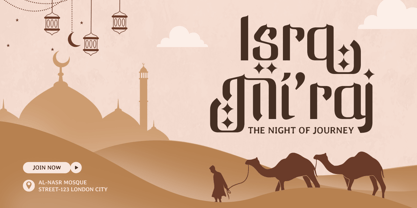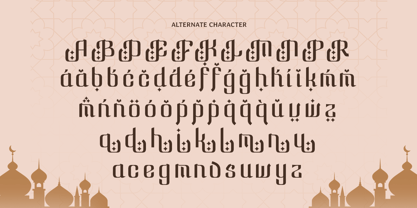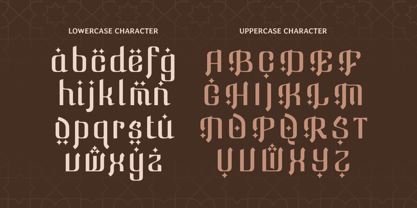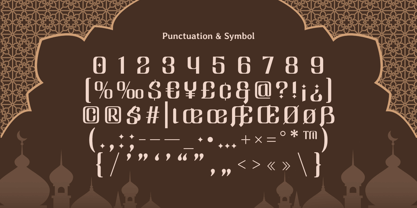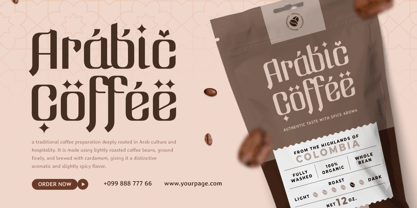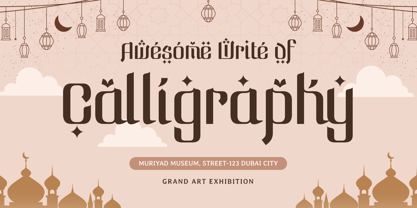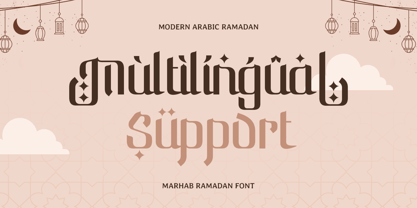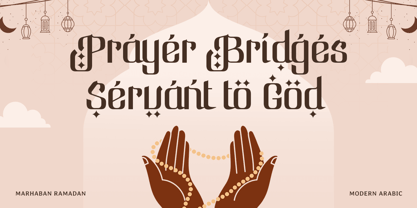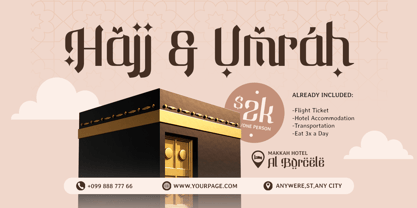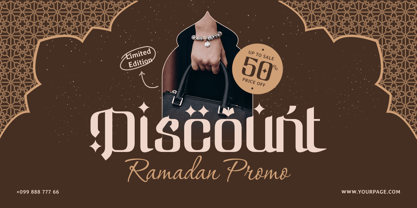
Marhab Ramadan
The Marhab Ramadan Font Family was designed by Zamroni Hamzah and published by Sensatype Studio. Marhab Ramadan contains 1 styles. More about this family
Marhab Ramadan - Arabic Ramadan Font
Marhab Ramadan is a beautifully crafted Arabic font designed to embody the spirit and warmth of the Ramadan season. Its graceful curves and modern style make it ideal for greeting cards, invitations, Islamic branding, and packaging. With its unique blend of tradition and contemporary design, this font captures the essence of Ramadan while enhancing your creative projects.
Inspired by the cultural significance of Ramadan, Marhab Ramadan ensures your designs carry a sense of festivity and spirituality. Whether used for digital banners, social media posts, or elegant print materials, this font conveys messages of peace and celebration with sophistication and clarity.
Create meaningful and visually striking designs with Marhab Ramadan, a font that seamlessly combines traditional Arabic aesthetics with modern versatility. It’s the perfect choice for those who want to deliver messages that resonate deeply during this special time of the year.
Marhab Ramadan Arabic Ramadan Font Features:
• Elegant Arabic Typography Design
• Punctuation, Numbers, and Symbols
• Uppercase and Lowercase
• Opentype Features
Multilingual Characters available for:
Afrikaans, Albanian, Asu, Basque, Bemba, Bena, Breton, Chiga, Cornish, Dutch, English, Estonian, Filipino, Finnish, Friulian, Galician, German, Gusii, Indonesian, Irish, Italian, Kabuverdianu, Kalenjin, Kinyarwanda, Luo, Luxembourgish, Luyia, Machame, Makhuwa-Meetto, Makonde, Malagasy, Manx, Morisyen, North Ndebele, Nyankole, Oromo, Portuguese, Quechua, Romansh, Rombo, Rundi, Rwa, Samburu, Sango, Sangu, Scottish Gaelic, Sena, Shambala, Shona, Soga, Somali, Spanish, Swahili, Swedish, Swiss.